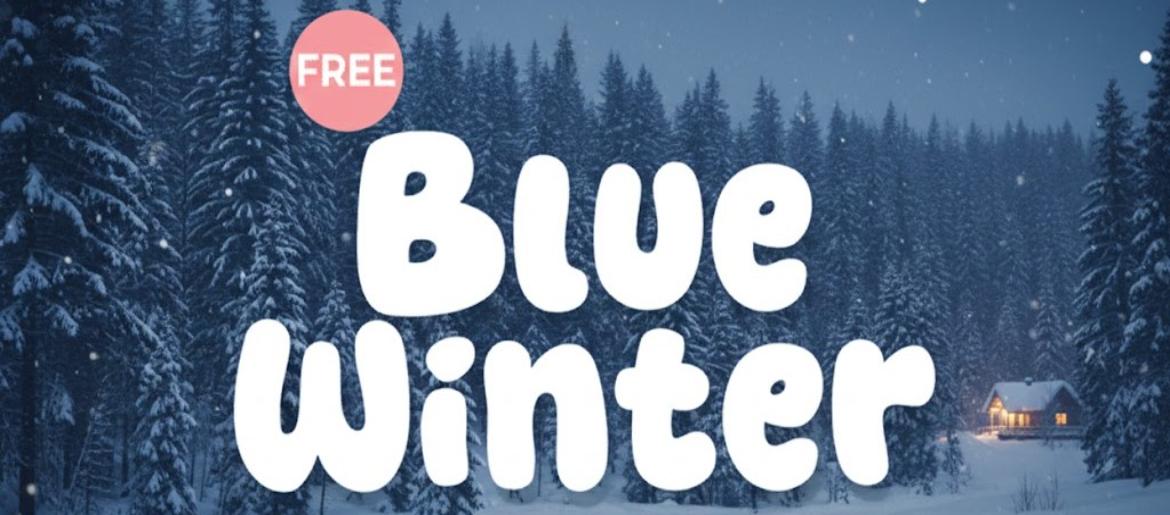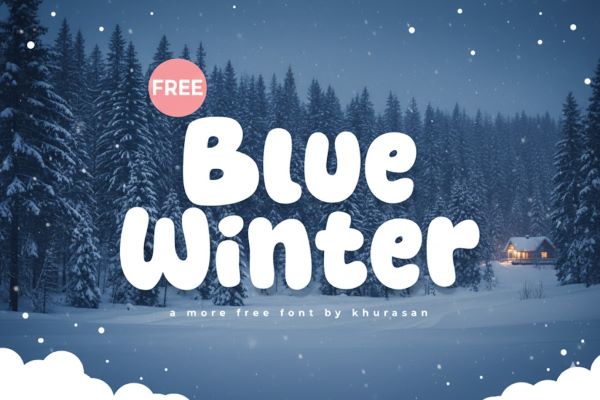
Blue Winter Font
Blue Winter Font is an ultra-rounded display typeface created for high visibility and instant impact. Its soft, pillowy letterforms evoke warmth, joy, and seasonal comfort, making it perfect for children’s winter apparel, toy packaging, festive posters, and holiday branding. When paired with icy gradients, shadows, or glitter effects, Blue Winter delivers a fun, cozy, and eye-catching winter atmosphere.
➤ Font Name: Blue Winter
➤ Designer: Khurasan
➤ Style: Cartoon